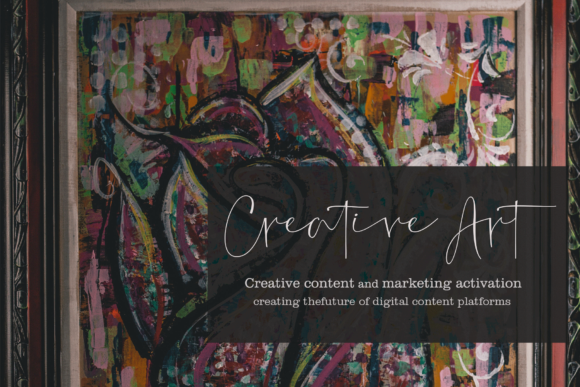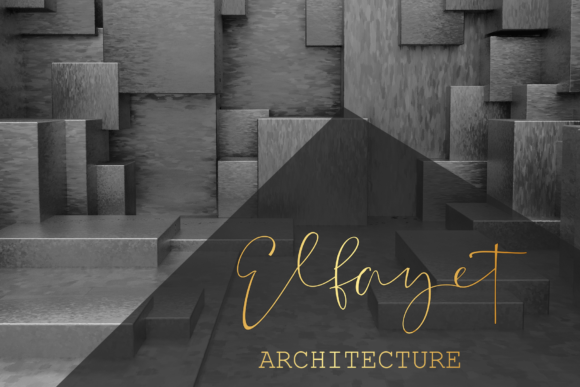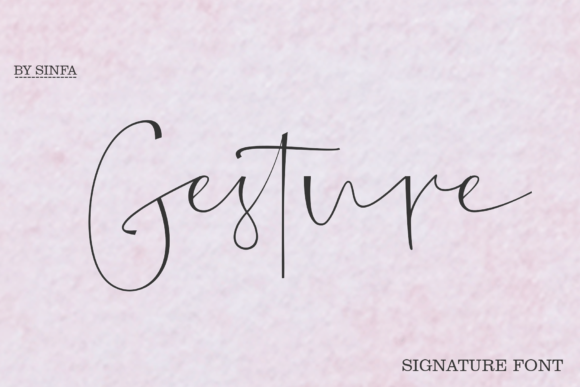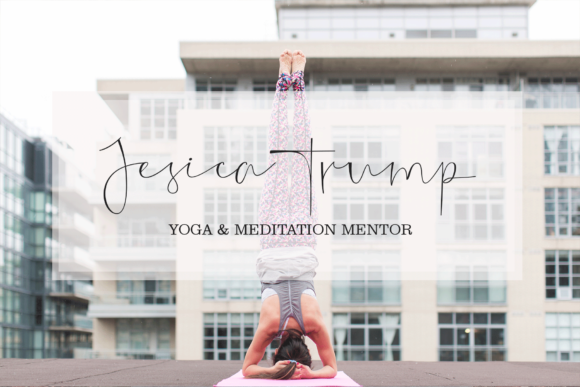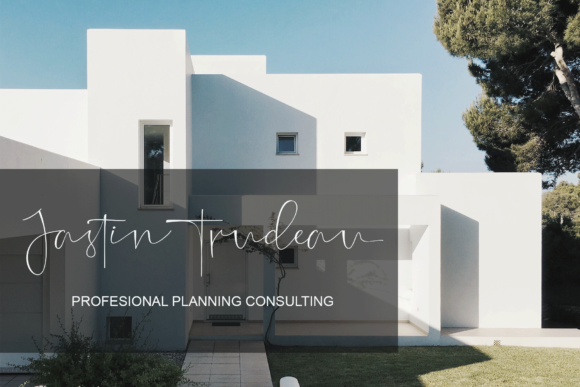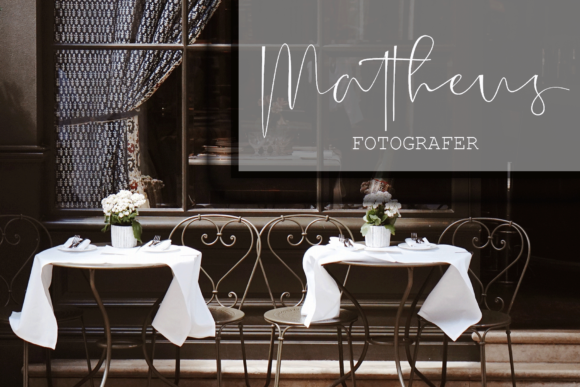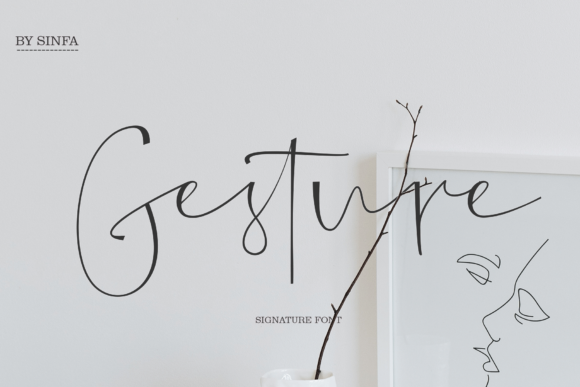
Introducing Gesture Font: Elevate Your Designs with Elegance
In the world of typography, a font can make or break a design. For those seeking a touch of elegance and sophistication, Gesture Font is an exceptional choice. This stylish and delicate script font is poised to become a favorite among designers and crafters alike, offering a clean, thin, and smooth aesthetic that complements any project.
The Beauty of Gesture Font
Gesture Font boasts a unique blend of refinement and flair, making it perfect for a wide range of applications. Whether you’re working on a logo, invitation, or social media graphic, this font is sure to add a level of sophistication that sets your design apart. Its clean lines and delicate features create a visually appealing effect that will capture the attention of your audience.
One of the standout features of Gesture Font is its PUA (Private Use Area) encoding. This means that accessing the font’s extensive range of glyphs and swashes is incredibly easy. With PUA encoding, you can effortlessly navigate the font’s various characters and decorative elements, allowing you to add the perfect finishing touches to your design.
Gesture Font’s versatility is one of its greatest strengths. This font can be used in a multitude of design contexts, from:
Its adaptability and aesthetic appeal make it an excellent addition to any design project, ensuring that your work stands out in a crowded visual landscape.
Why Choose Gesture Font?
There are many reasons why Gesture Font should be your go-to choice for your next design project:
- Elegant and refined: Gesture Font adds a touch of sophistication to any design.
- Clean and smooth: Its thin lines and delicate features create a visually stunning effect.
- Easy to use: PUA encoding makes accessing glyphs and swashes a breeze.
- Versatile: Suitable for a wide range of design applications.
Tips for Using Gesture Font
To get the most out of Gesture Font, consider the following tips:
- Mix and match: Combine Gesture Font with other fonts to create a unique visual hierarchy.
- Play with sizes: Experiment with different font sizes to add emphasis and create visual interest.
- Utilize swashes: Take advantage of the font’s decorative swashes to add a touch of personality to your design.
Gesture Font is a stylish and delicate script font that is sure to become a staple in any designer’s toolkit. Its clean, thin, and smooth aesthetic, combined with its PUA encoding and versatility, make it an excellent choice for a wide range of design applications. Whether you’re a seasoned designer or a crafty DIY enthusiast, Gesture Font is the perfect way to add a touch of elegance and sophistication to your work.